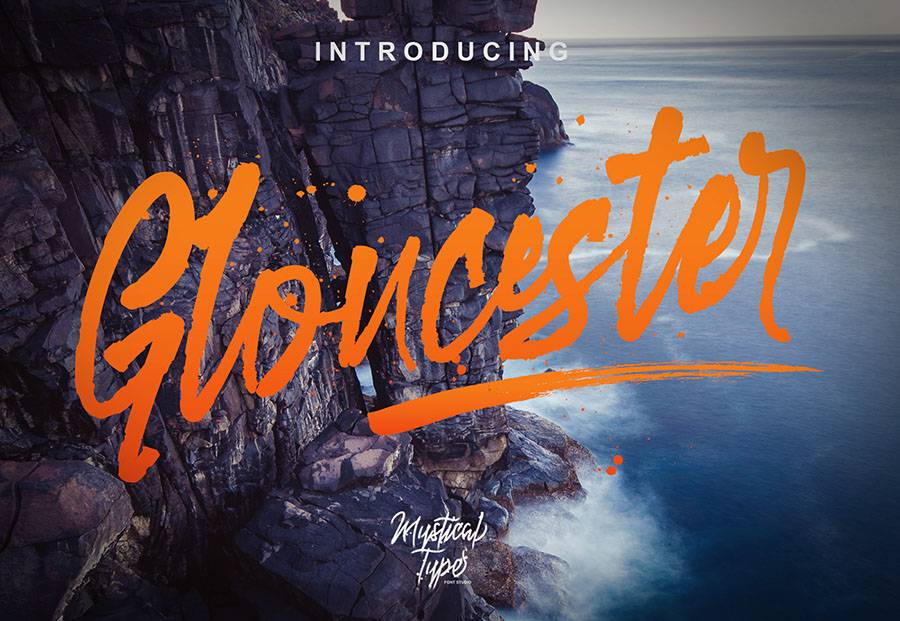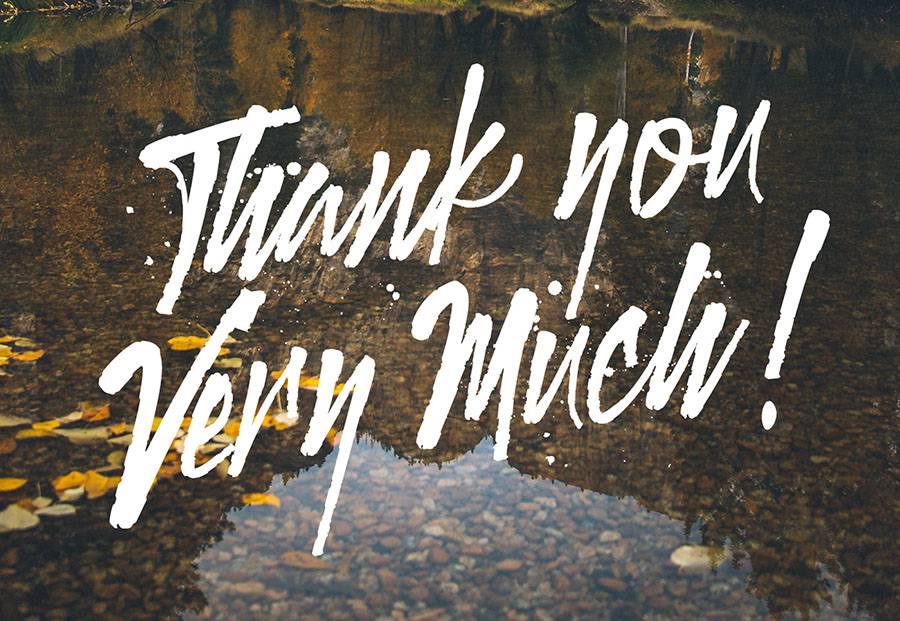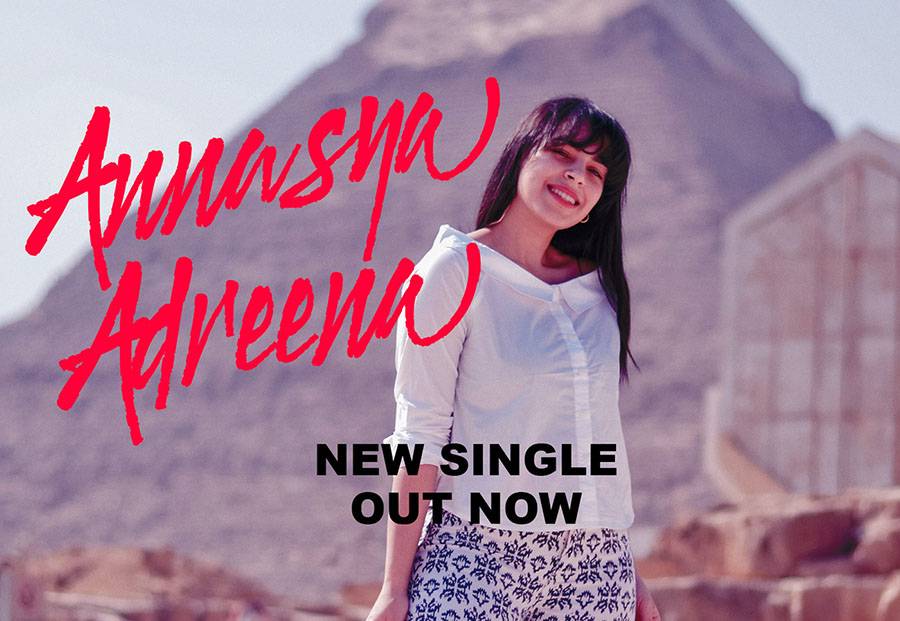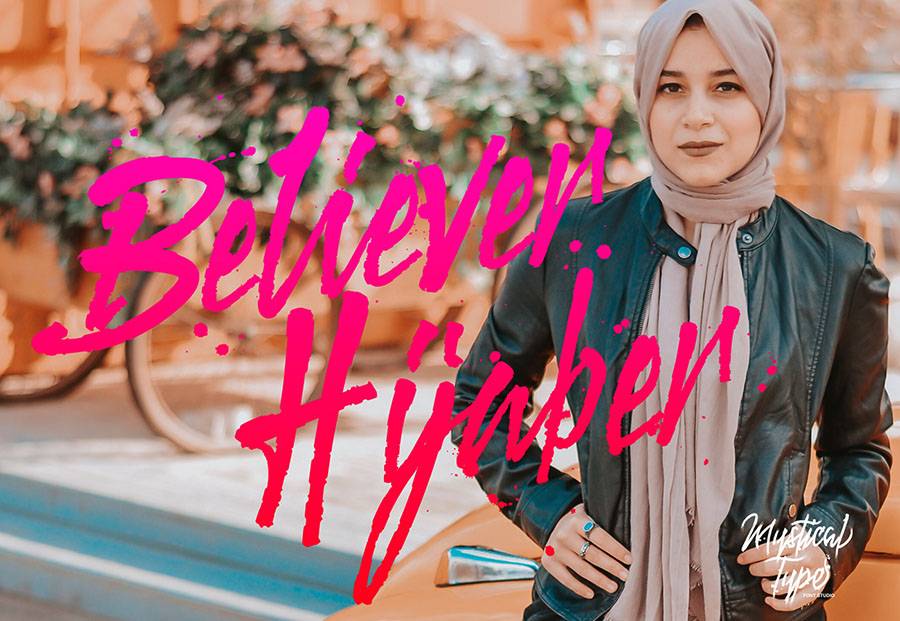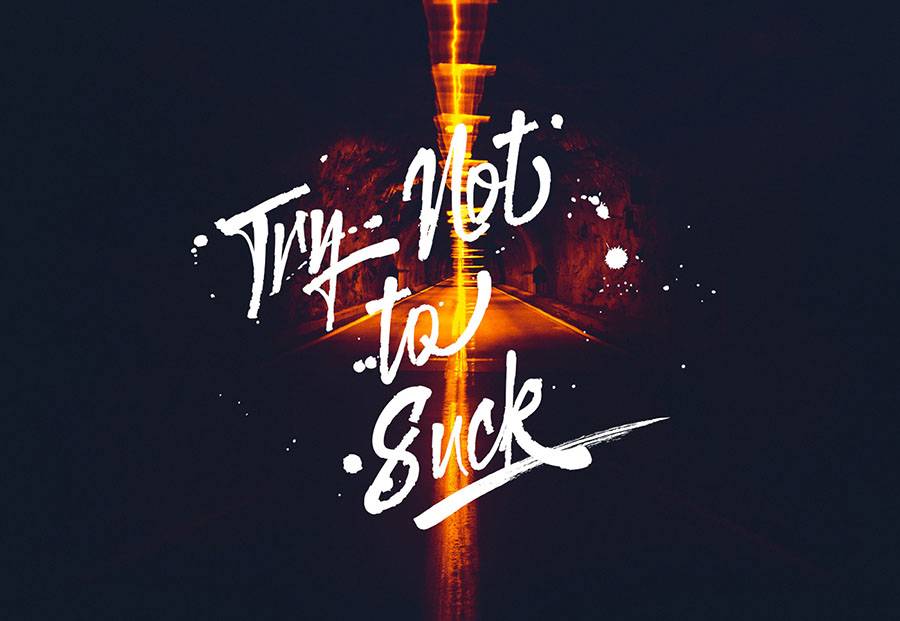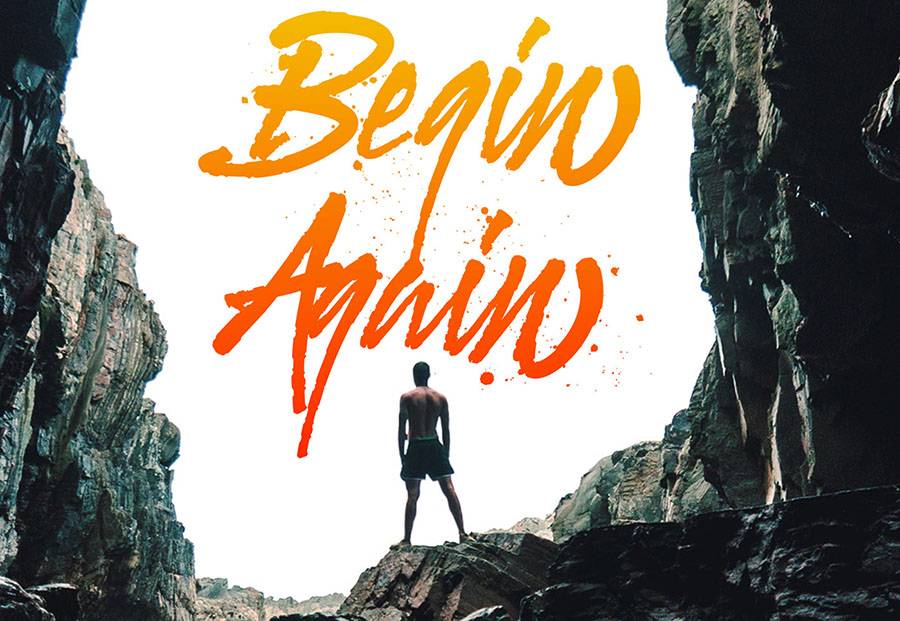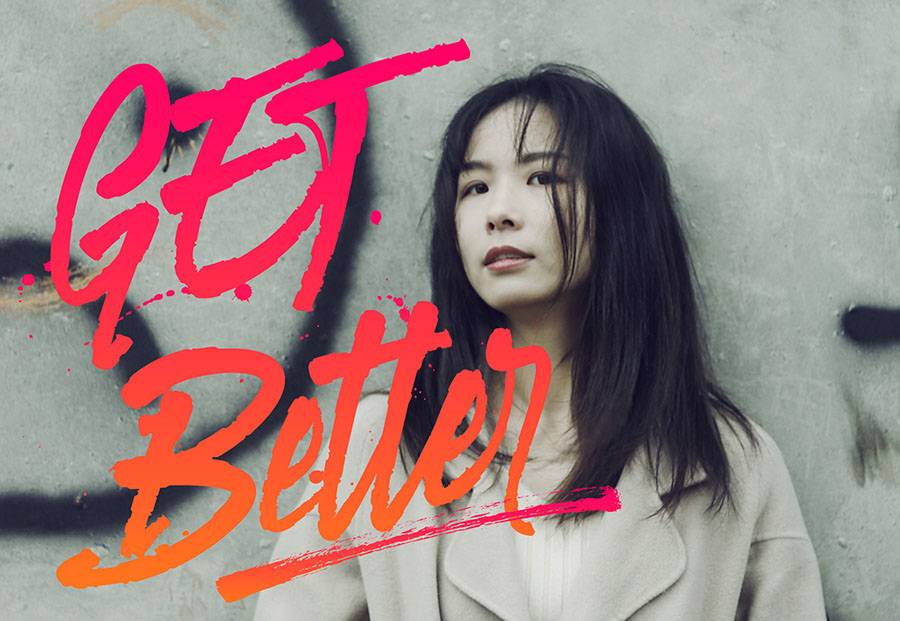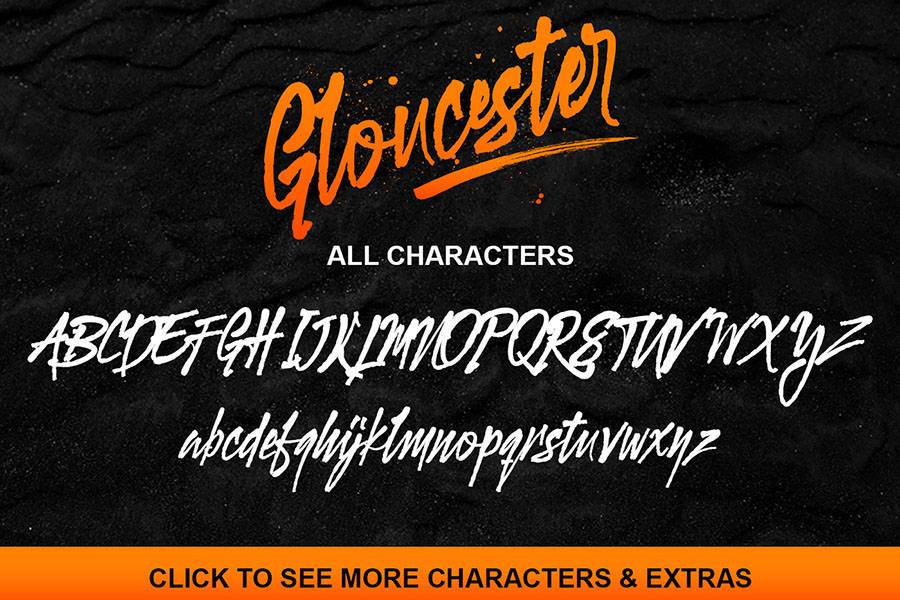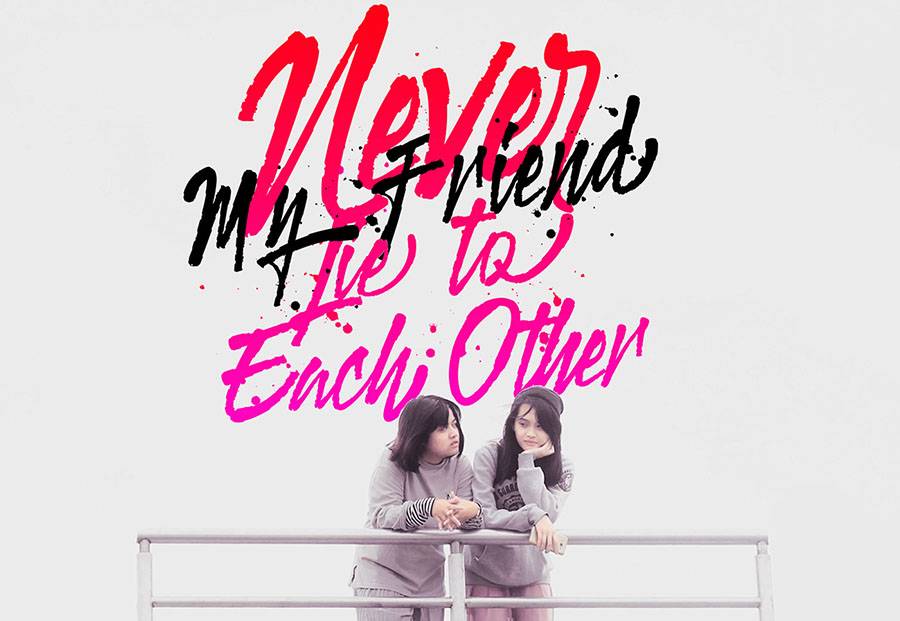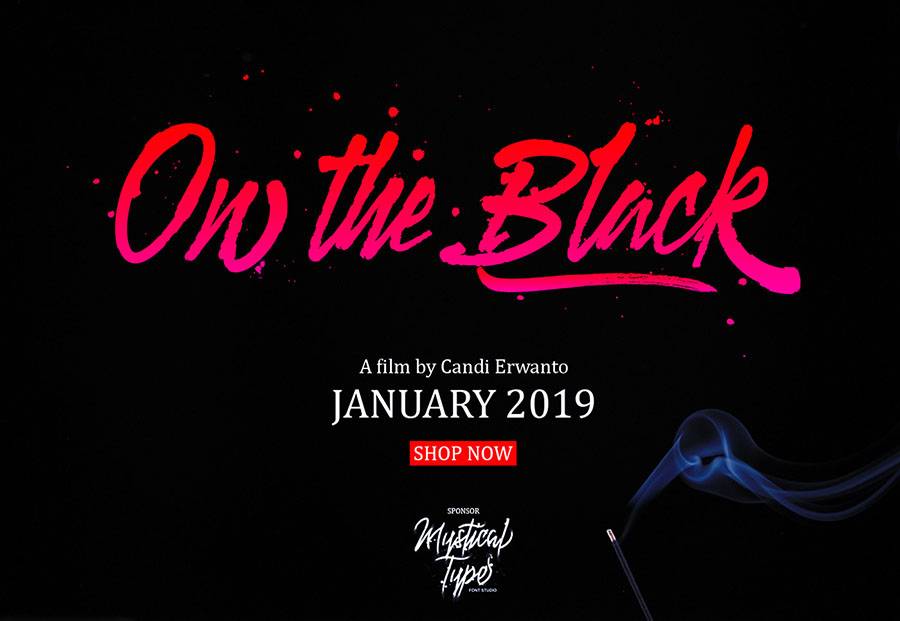
Gloucester Brush Script is an energetic and expressive brush script font that captures the lively motion of hand-painted lettering. Its bold, textured strokes combined with a casual yet sophisticated flow make it ideal for creative branding, artistic logos, and eye-catching headlines where a personal, handcrafted feel is desired. This font works best in display use, adding dynamic style and character to packaging, posters, and fashion designs.
Gloucester Brush Script Demo
About Gloucester Brush Script Demo
| Font family | Gloucester Brush Script Demo |
| Designer | Candi Erwanto |